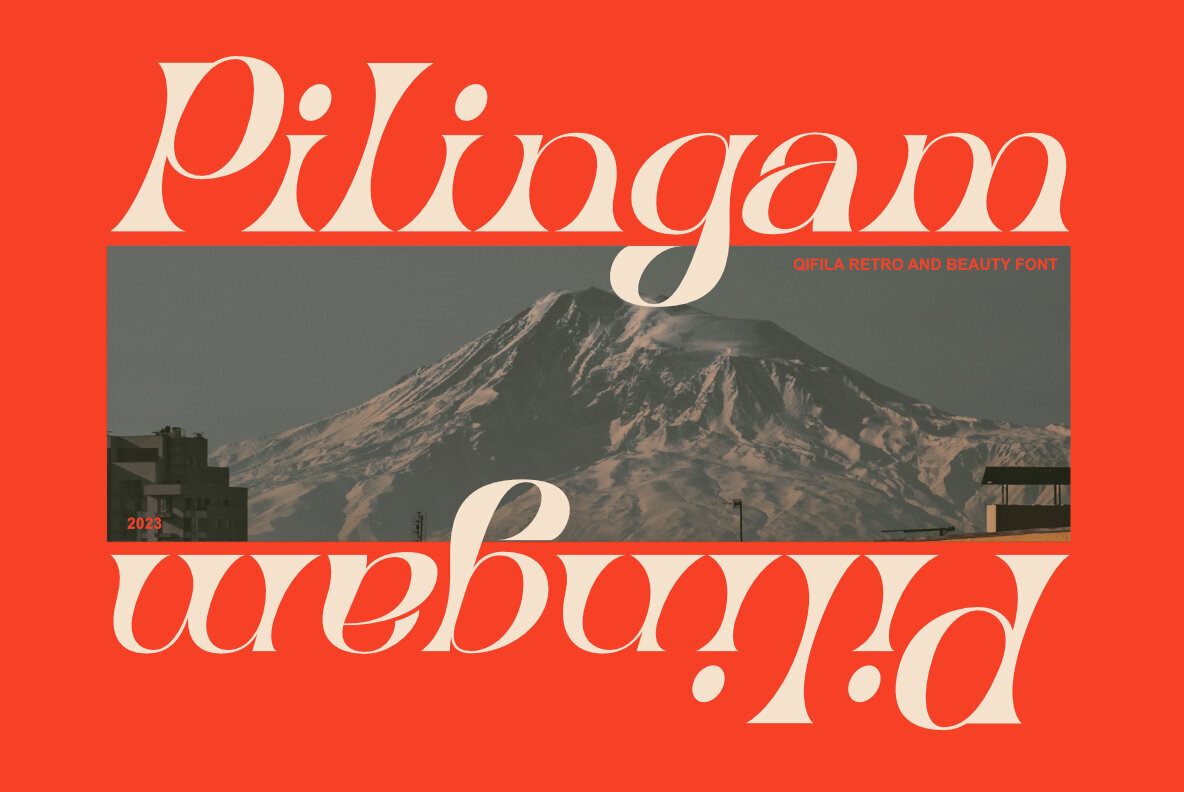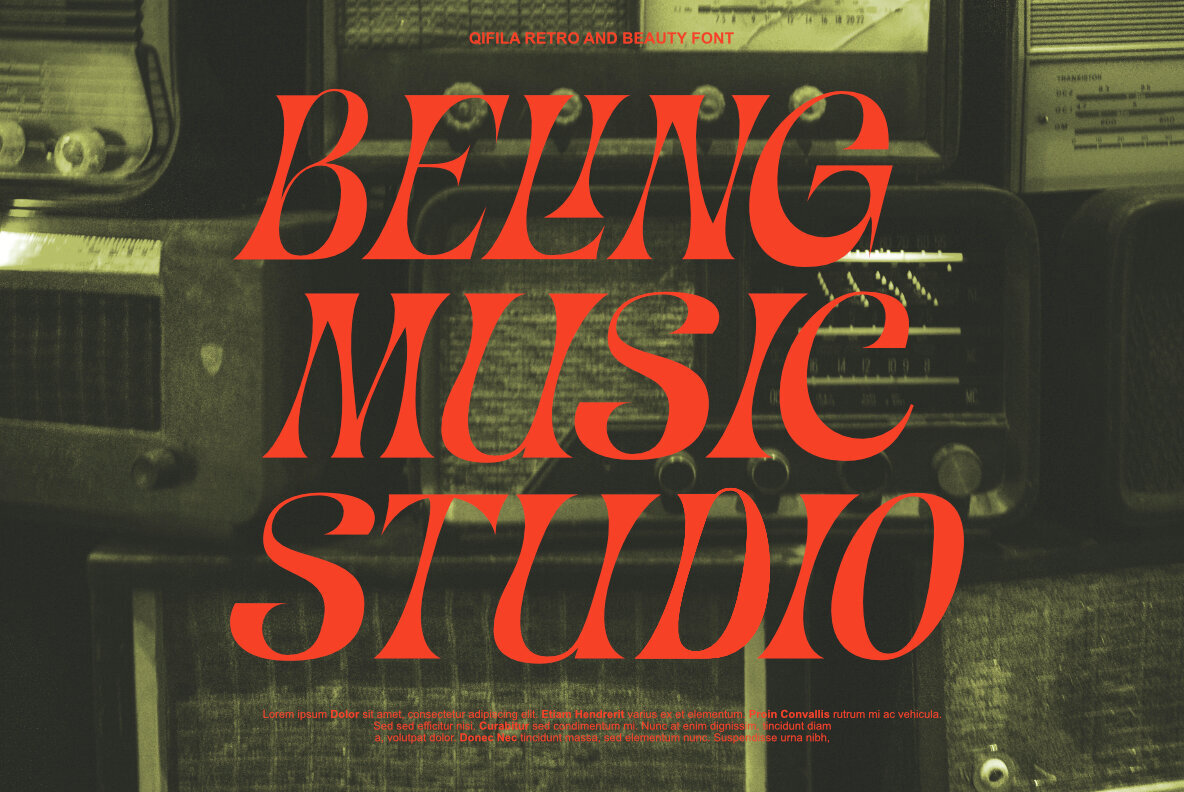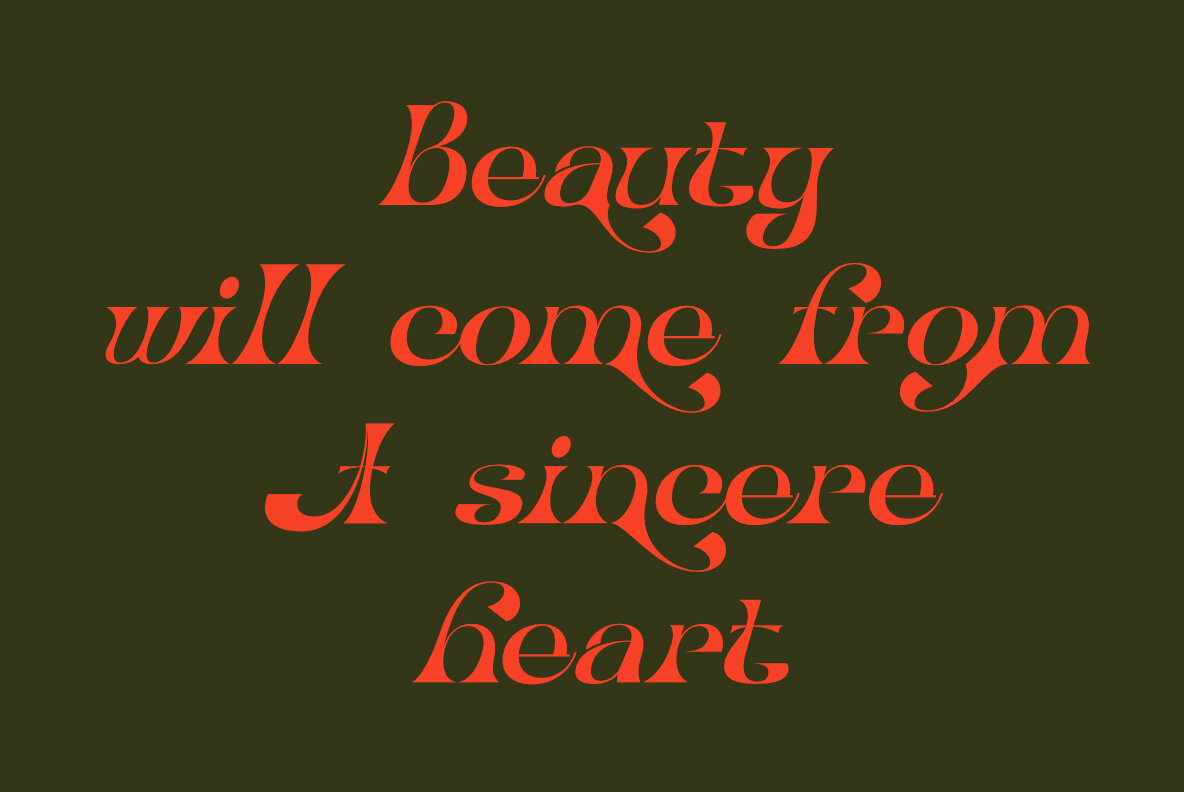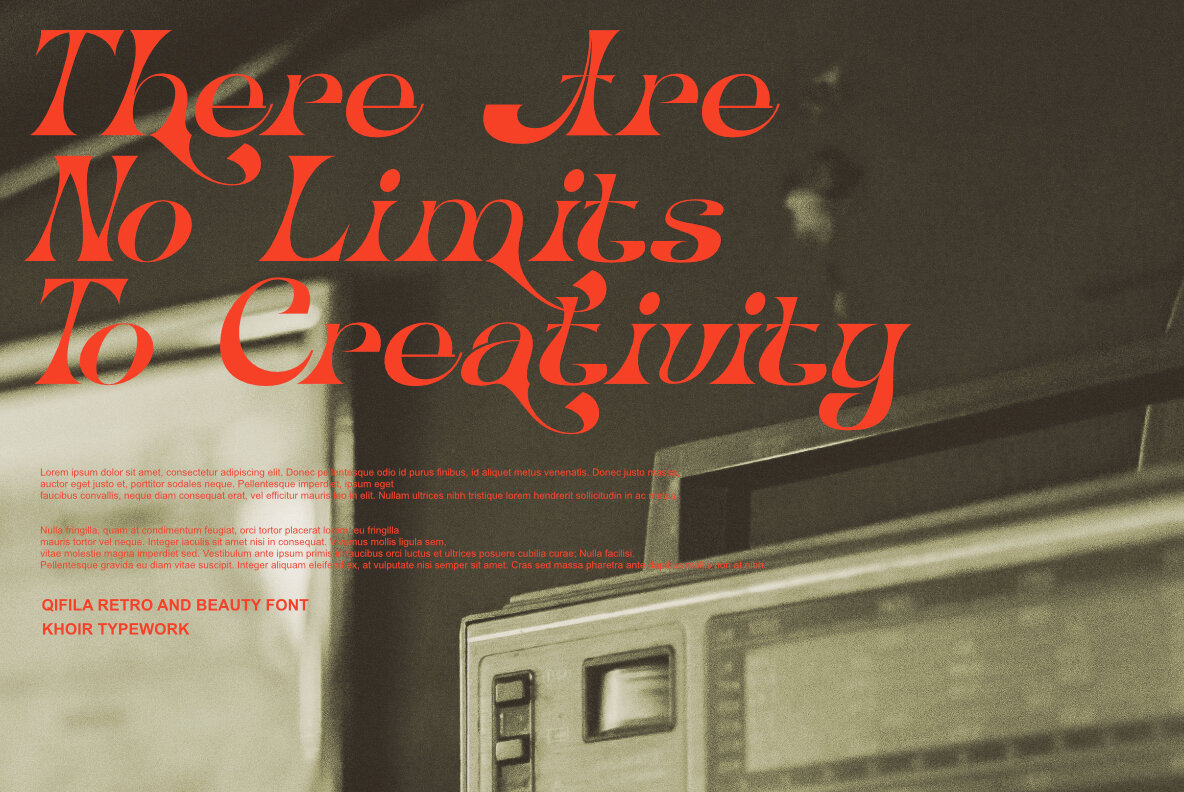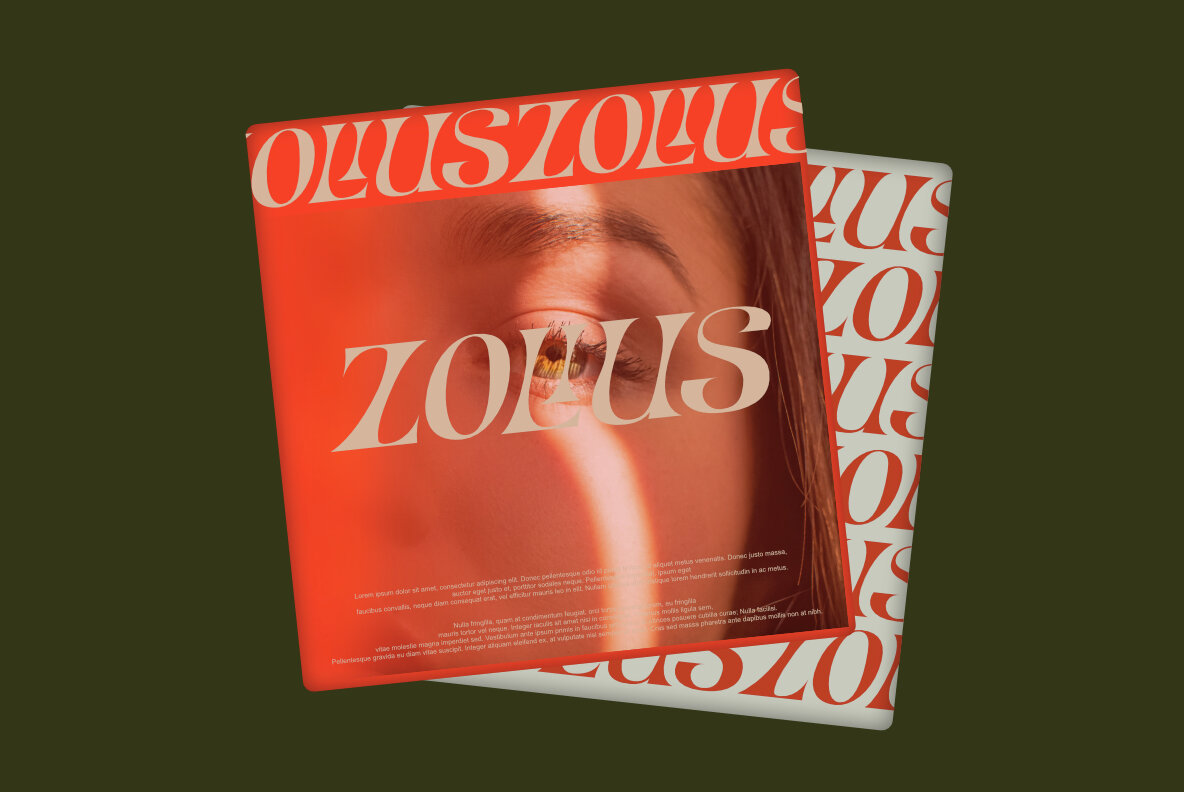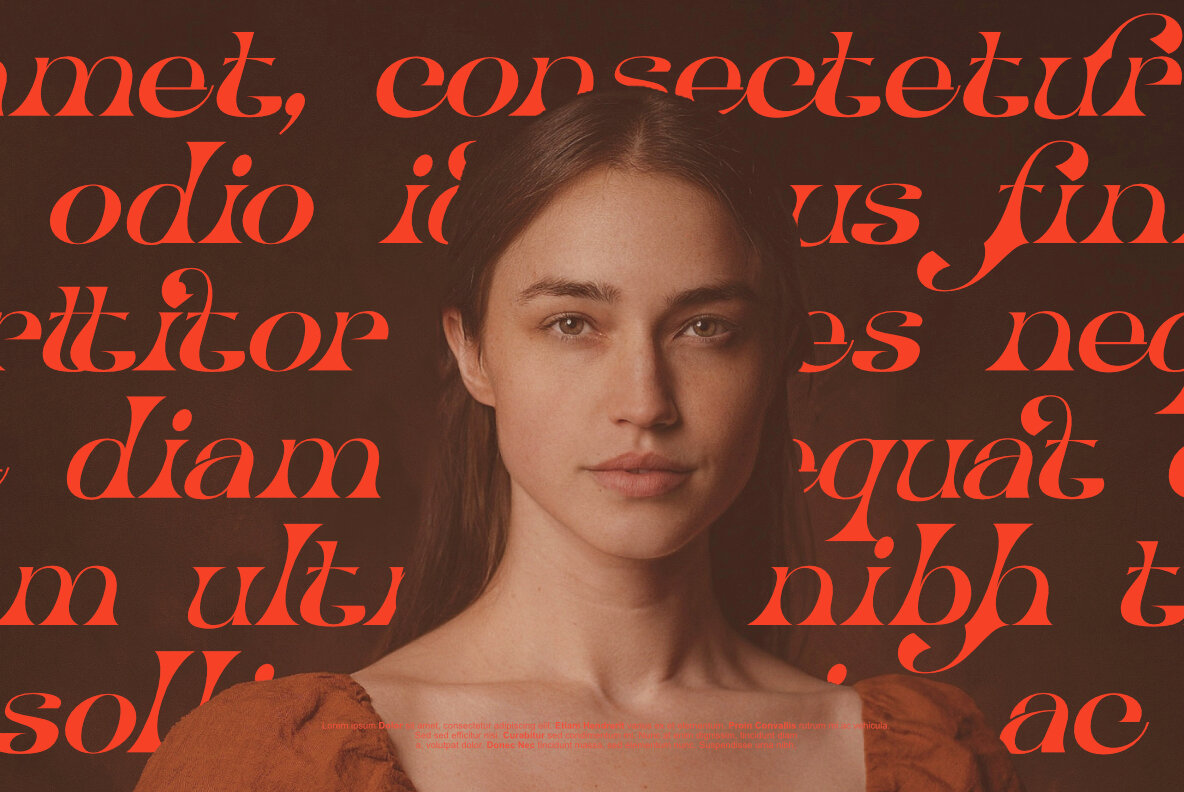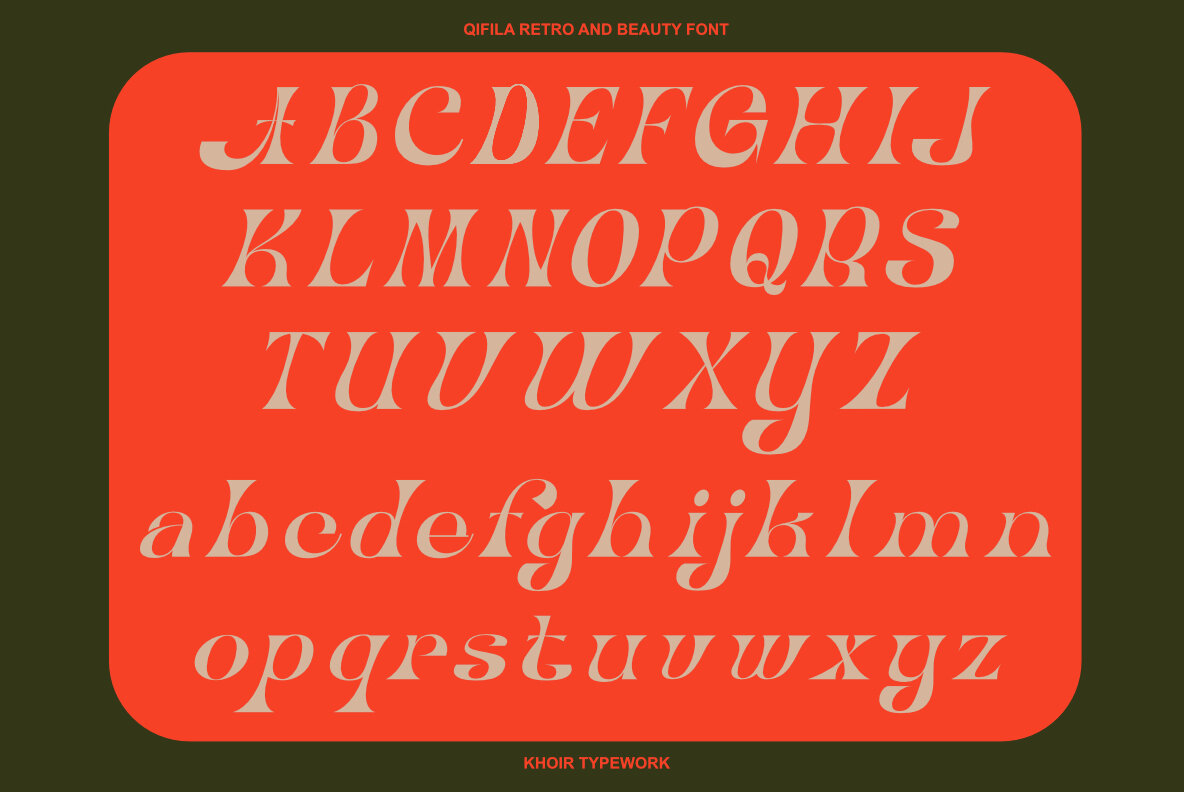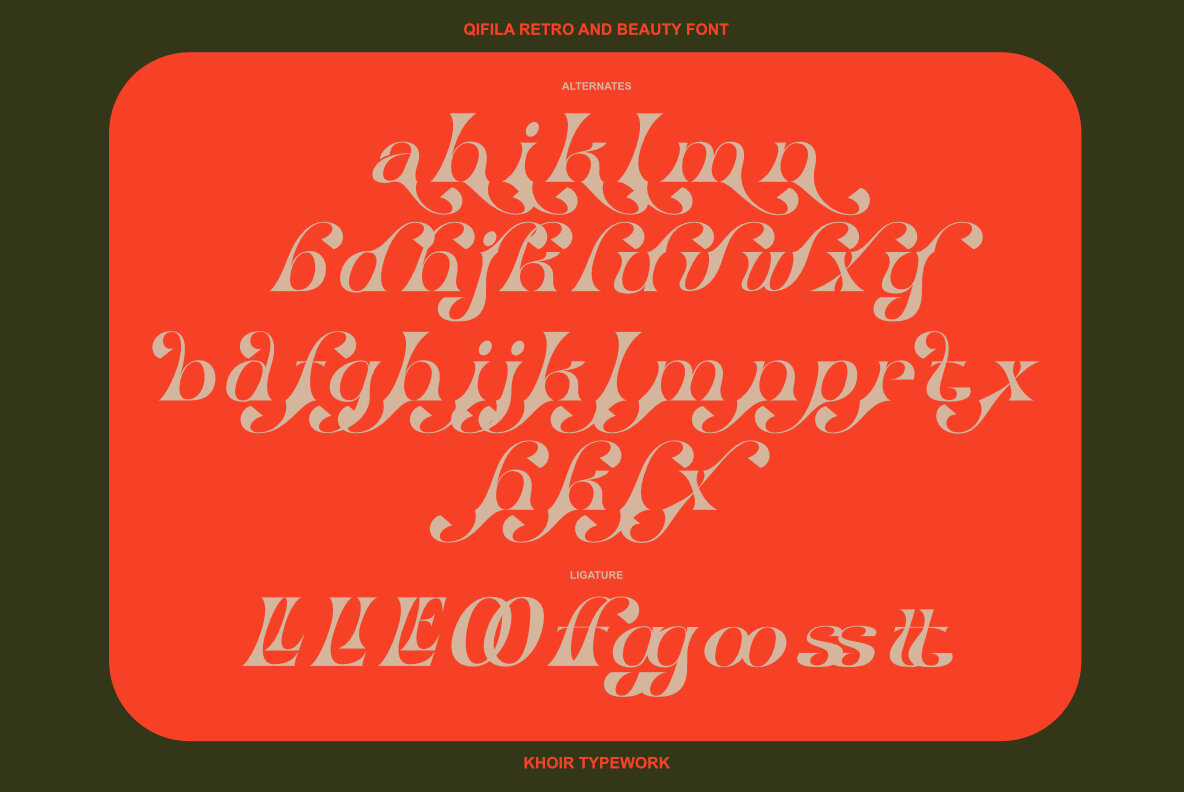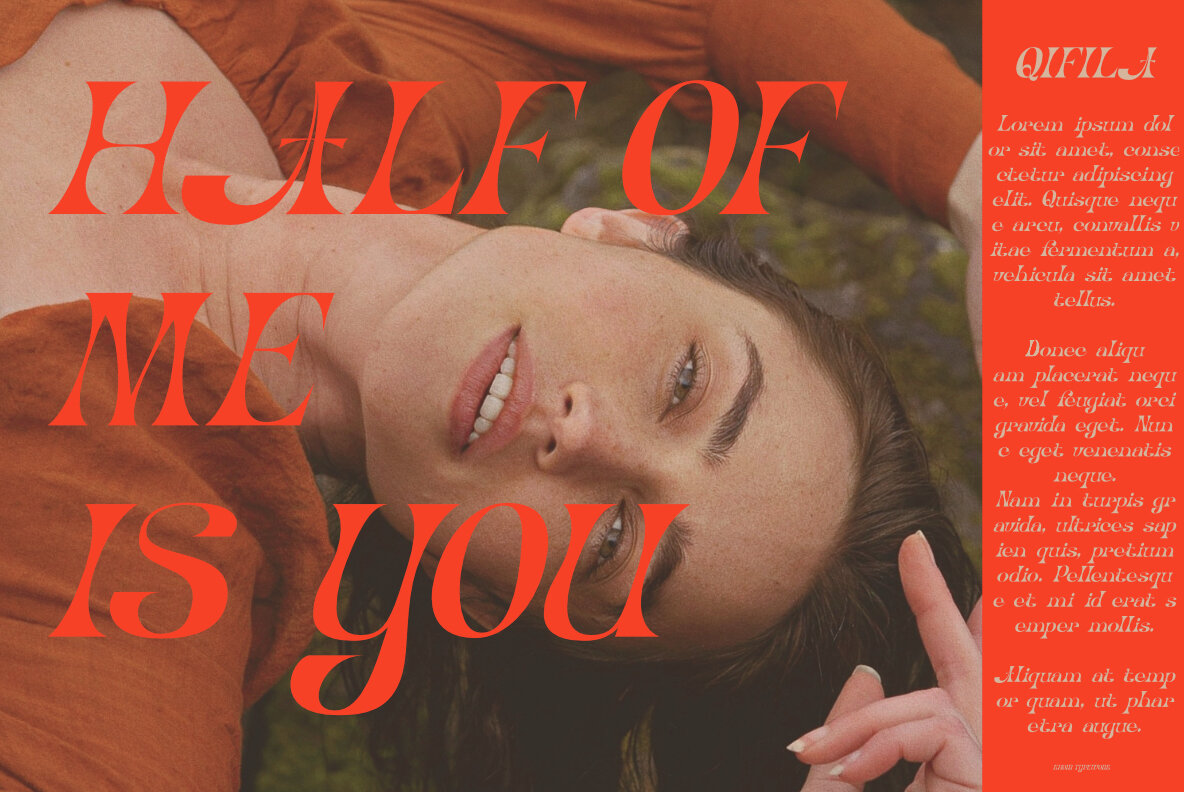
Qifila Font
Qifila is a serif font with a retro feel with the characteristic slopes and angles of the Victorian era, has a unique letter shape for each letter and has alternative fonts and ligatures that can make your work even more attractive. This font is perfect for your creative projects like packaging, logotype, printed quotes, cards, invitations, letterheads, clothing, magazines, covers, etc